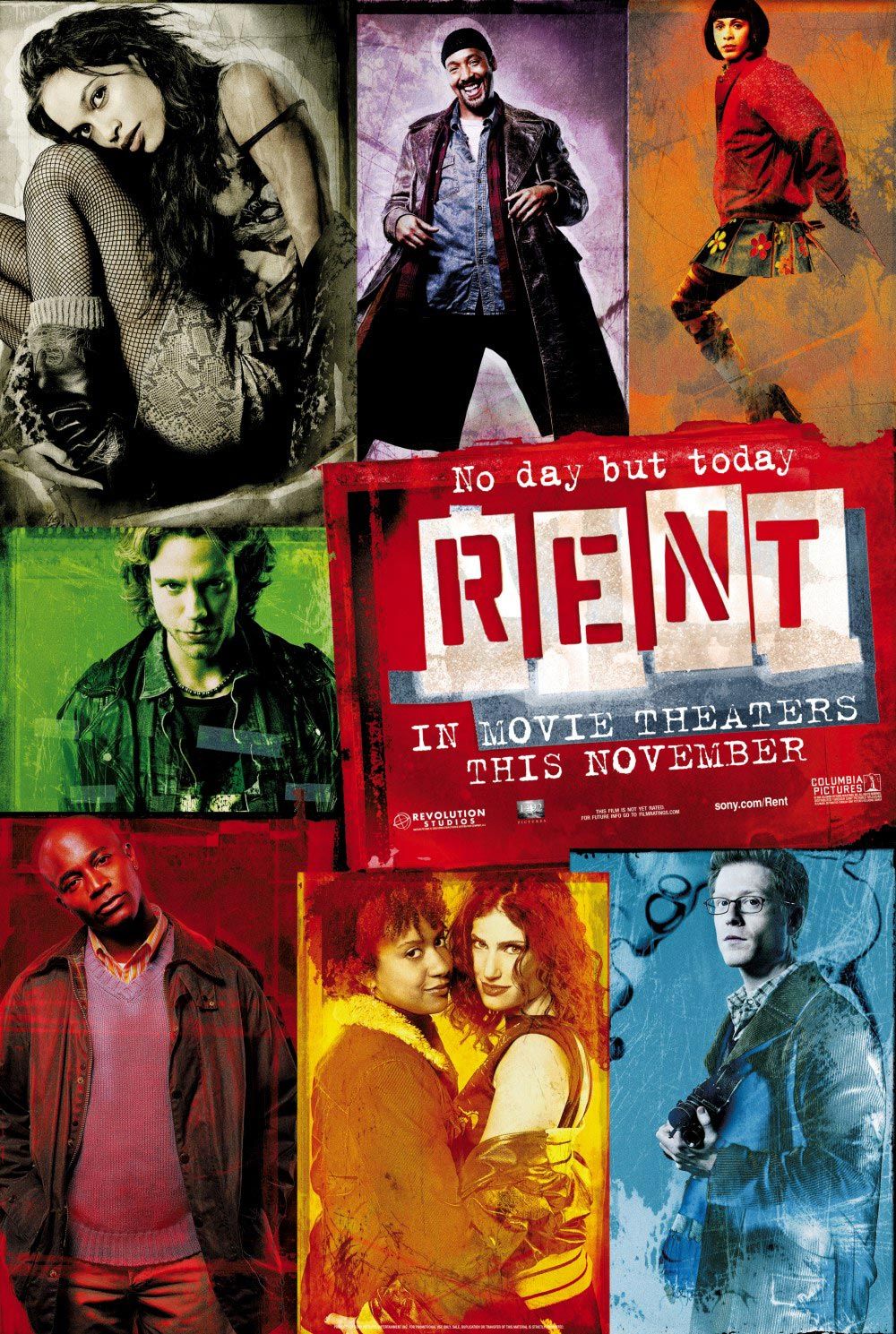
Rent (film) Font
DramaRent is a 2005 musical drama film based on the Tony-winning musical of the same name, depicting the struggles of a group of friends living in New York City's East Village during the AIDS epidemic of the 1980s and 90s.
The title of the film uses a stencil-style font that closely resembles Shipped JNL, a font created by Jeff Levine. The poster also features a typewriter-style font, which appears similar to FF Trixie, a font created by Erik van Blokland.